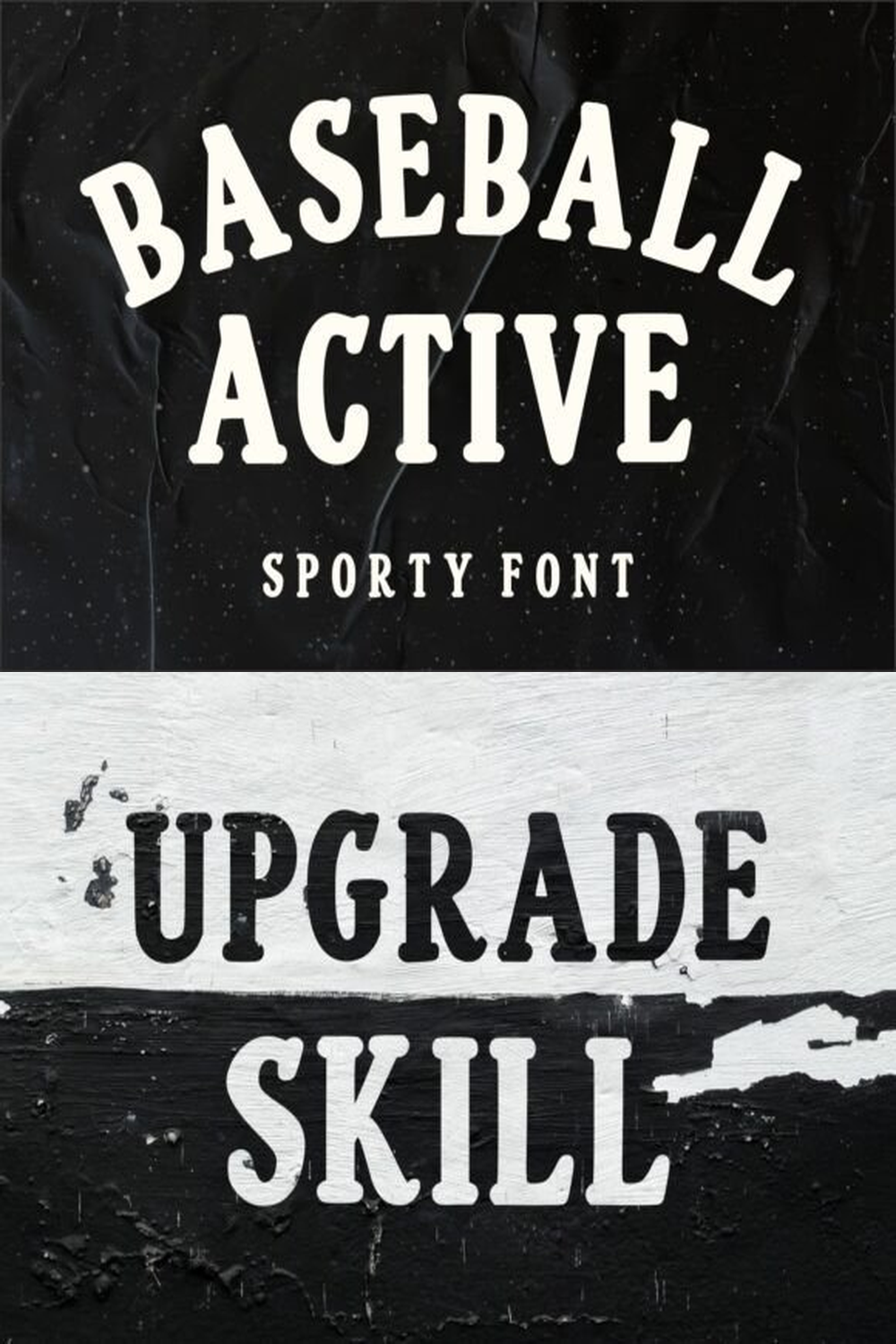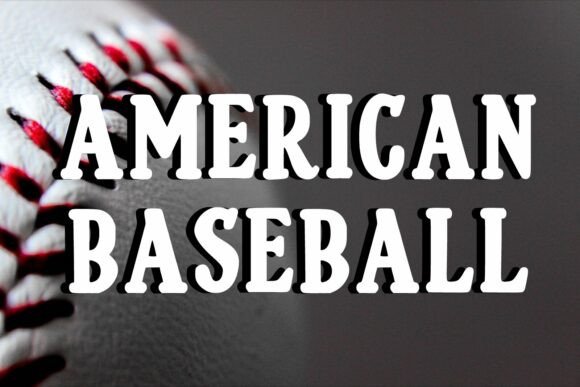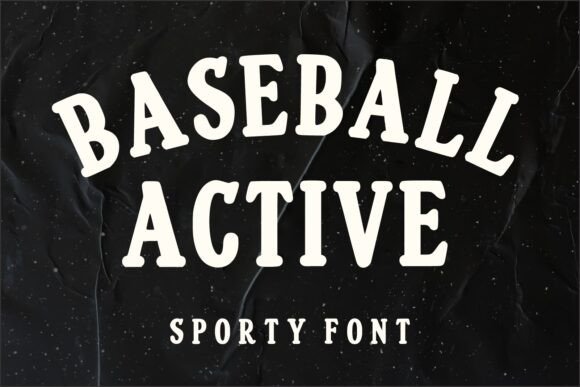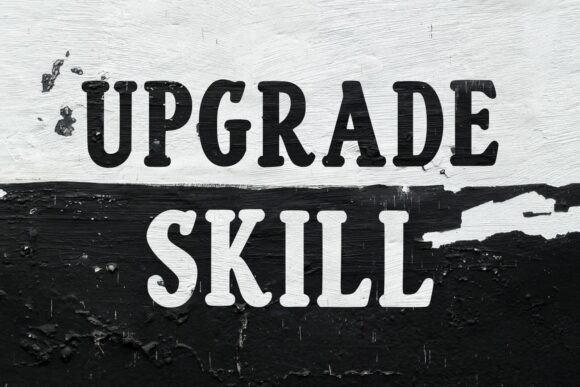
Baseball Active Font
About the Baseball Active Font
The wait is over! The incredible Baseball Active Font is now available for your design toolkit. Baseball Active is a sports classic display font, inspired by Baseball. This bold and dynamic font captures the energy and excitement of sports. It features a strong and commanding look, with thick lines and sharp edges that convey power and athleticism.
Baseball Active Font Usage Examples